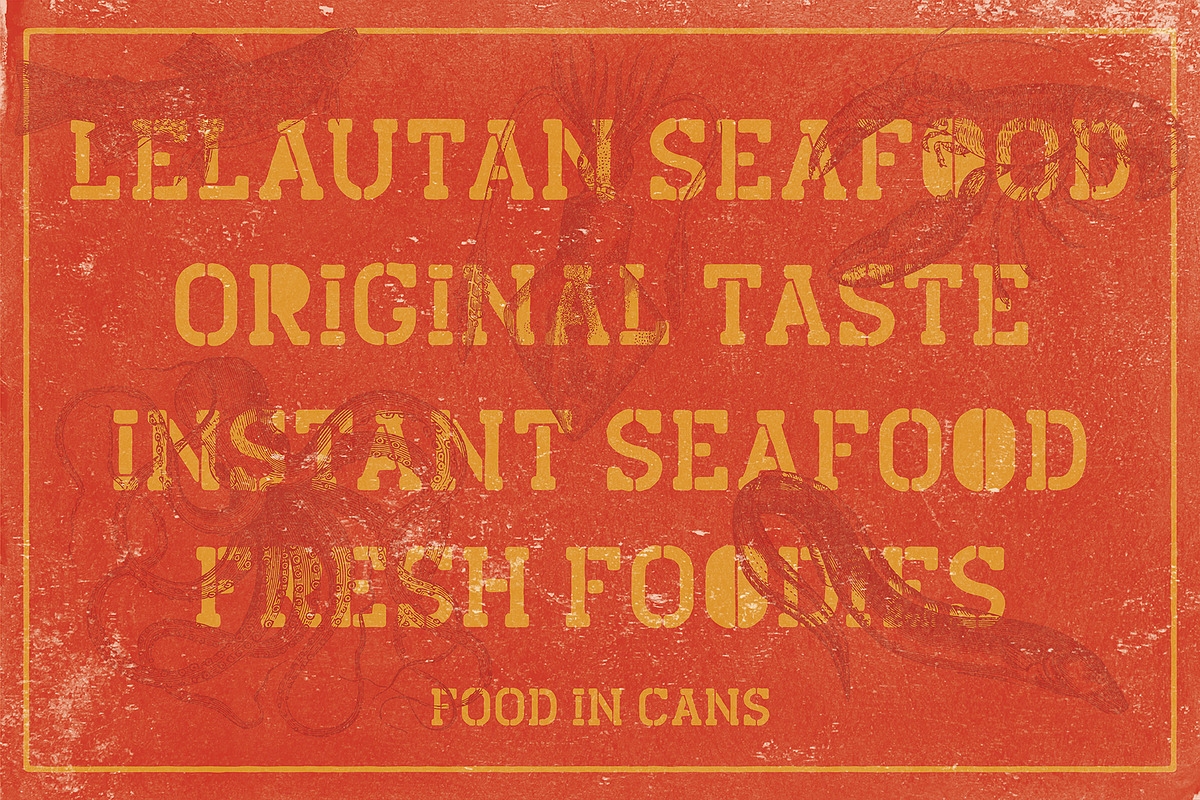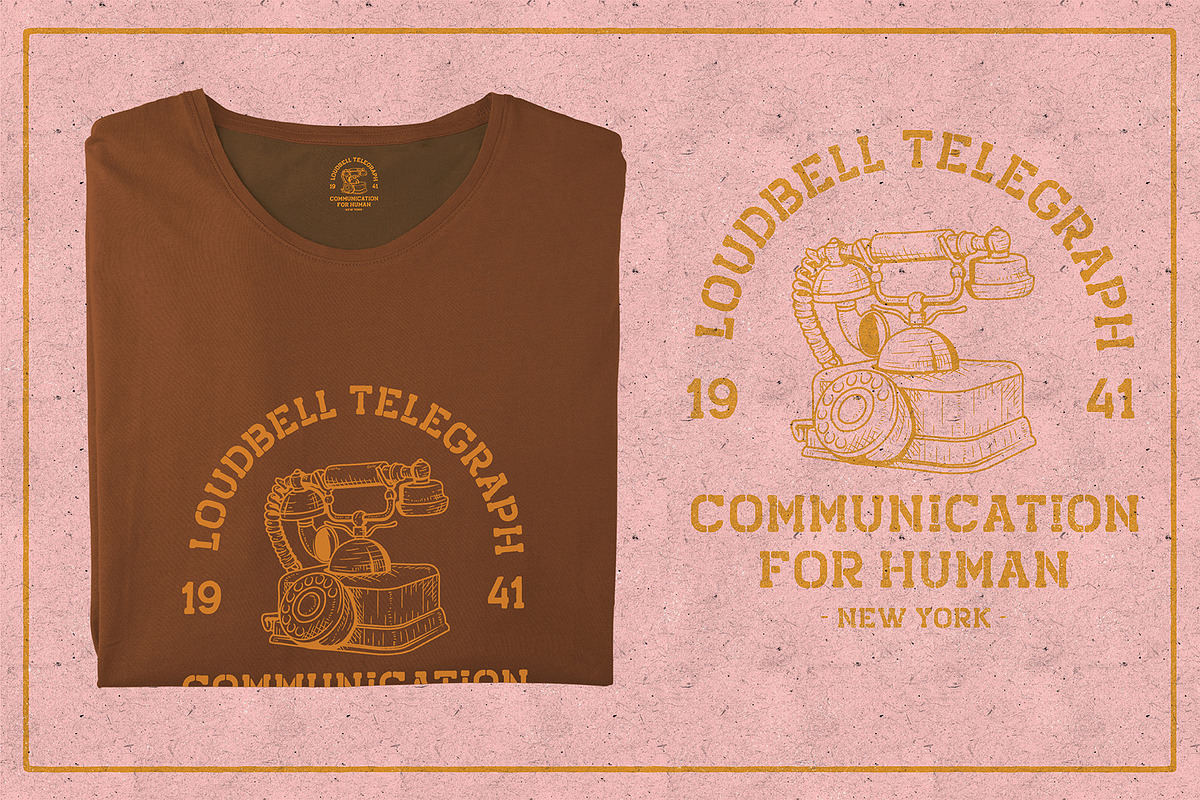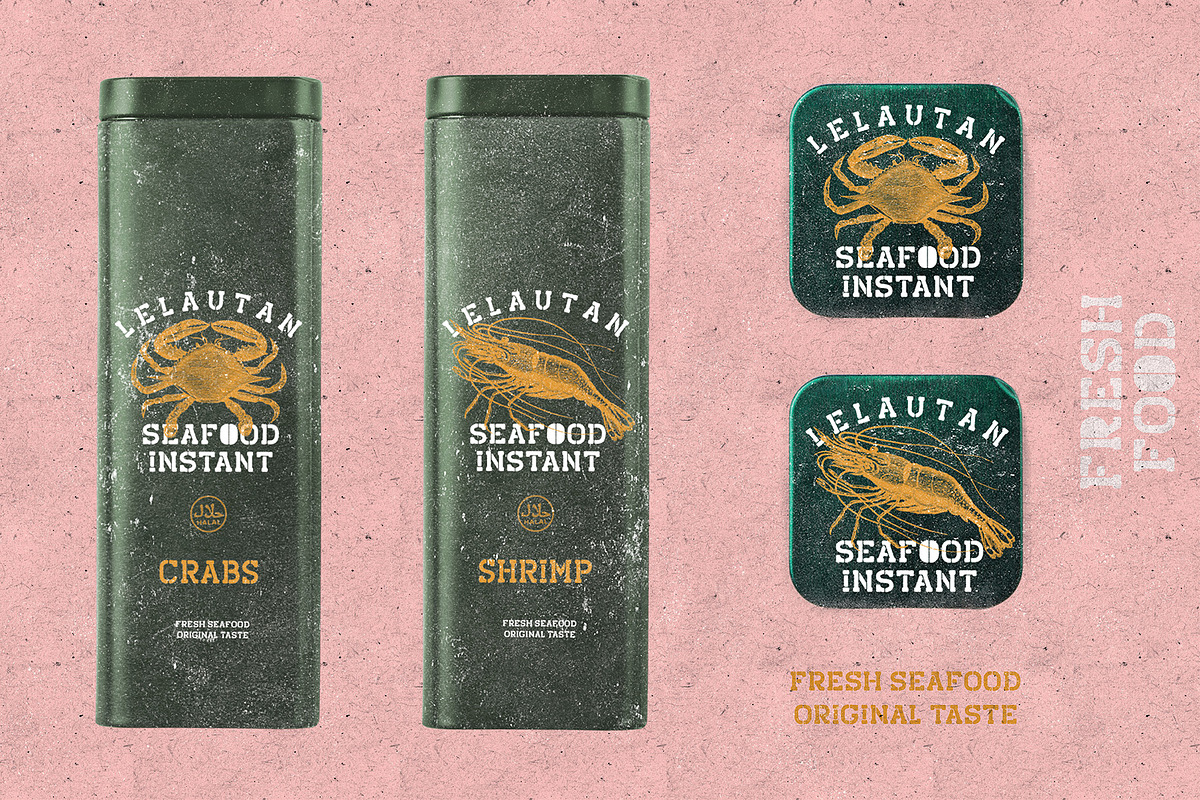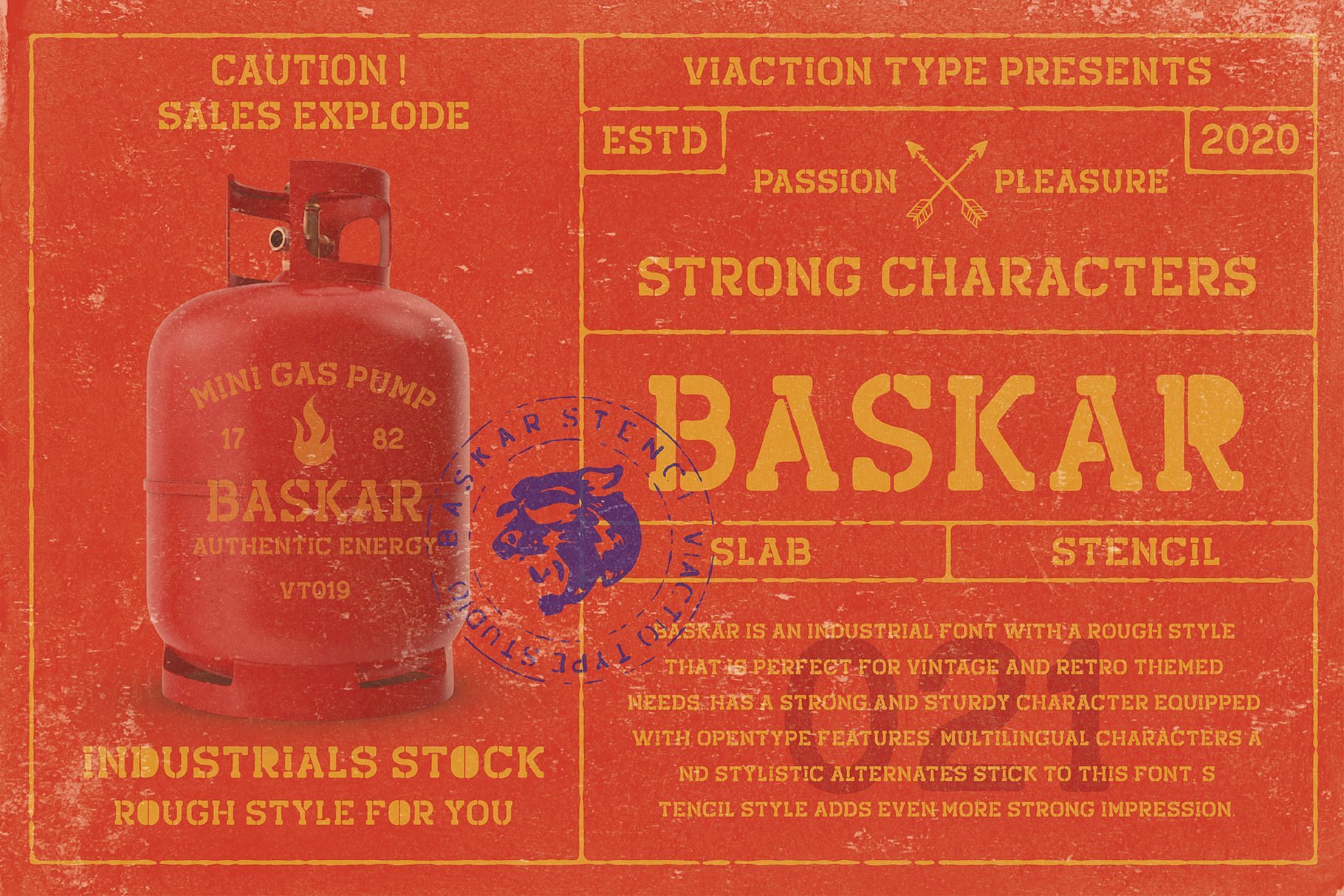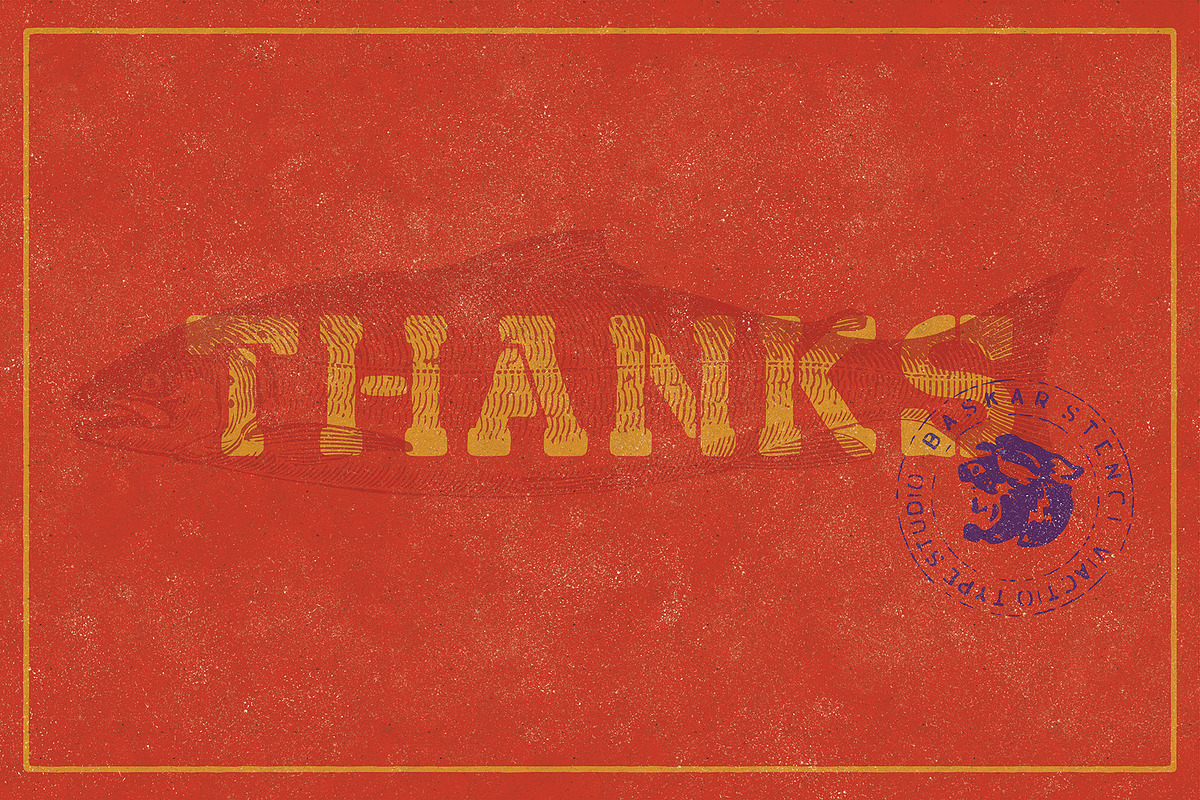
VT BASKAR - Vintage Font
Baskar Stc is a slab serif nice applied in various products. Complete with multilingual characters and stalistic alternates. It is suitable for quote, clothing design, vintage logo, label, poster, packaging design and other designs.
- UPPERCASE.
- LOWERCASE.
- MULTILINGUAL.
- PUNCTUATION & SYMBOL.
- STYLISTIC SET.